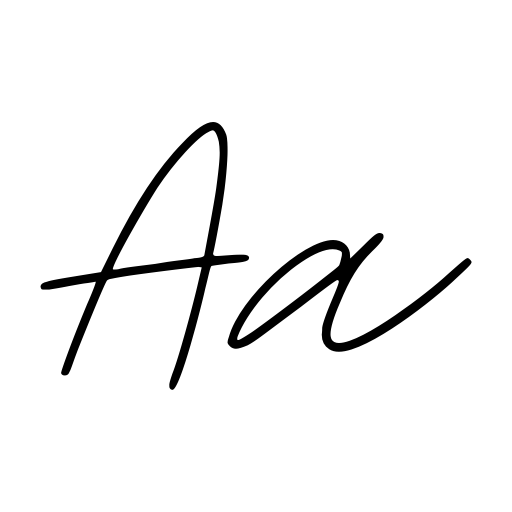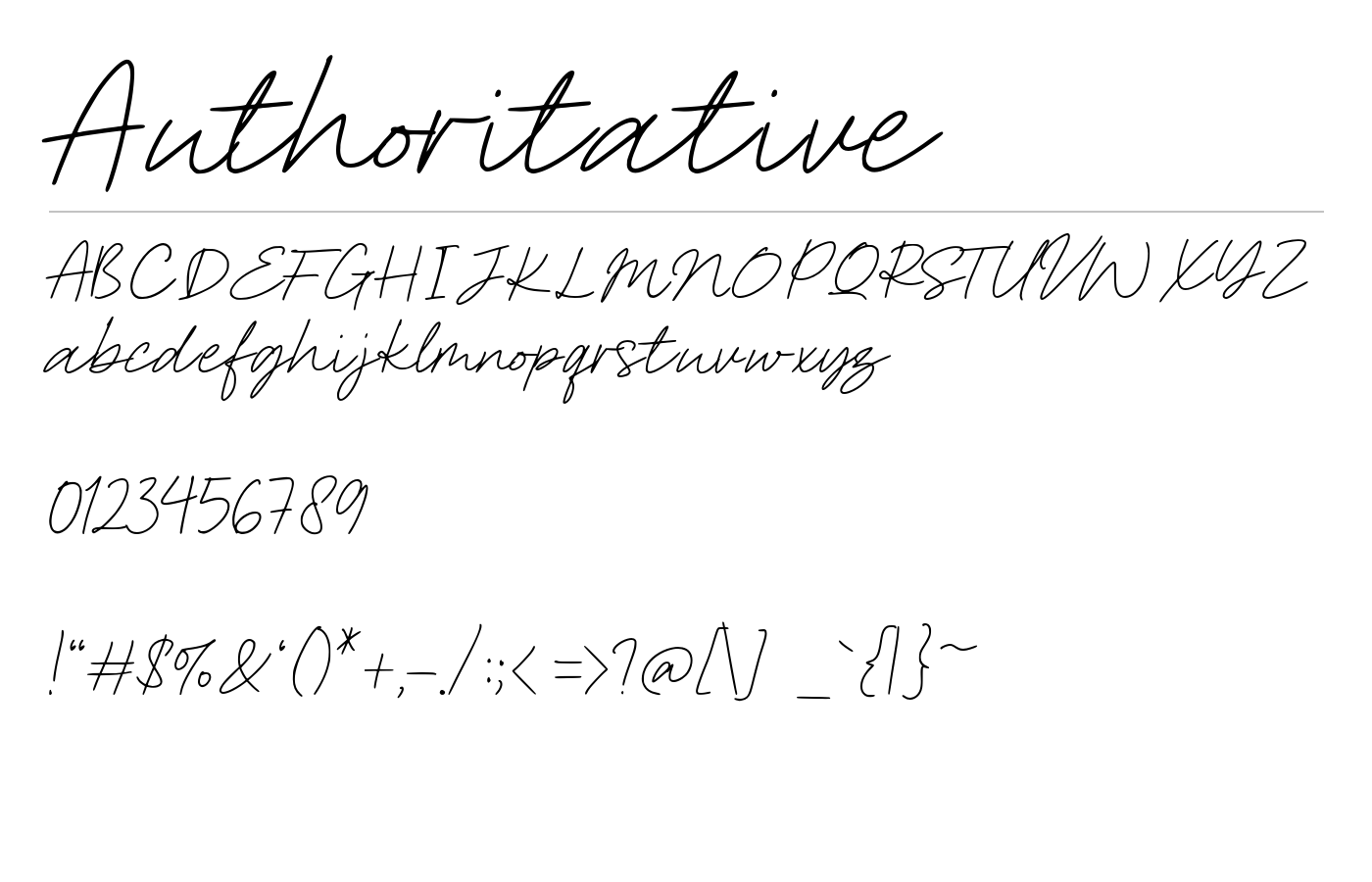
Authoritative Font is a delicate and elegant handwritten script that combines fine, flowing strokes with a natural, casual feel. Its light weight and slender lines give it a refined yet approachable personality, making it ideal for branding, invitations, and creative projects that seek a personal and sophisticated touch. This font works beautifully in contexts where a graceful, authentic handwritten style enhances warmth and elegance.
Authoritative Font
About Authoritative Font
| Font family | Authoritative Font |
| Designer | Agam Rahmadan |